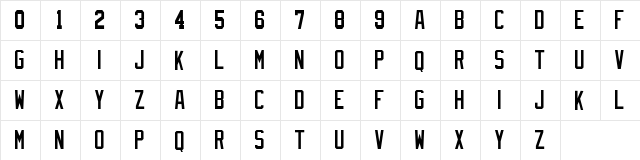
NHL Anaheim Regular
Design Context for NHL Anaheim Typeface
NHL Anaheim takes a measured approach to typography — its balanced proportions and neutral character make it a reliable workhorse for both digital and print work.